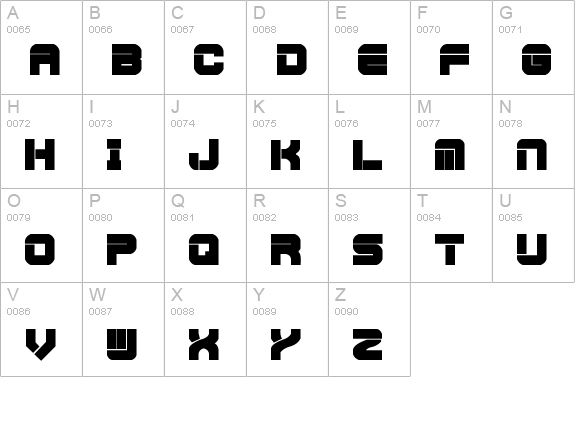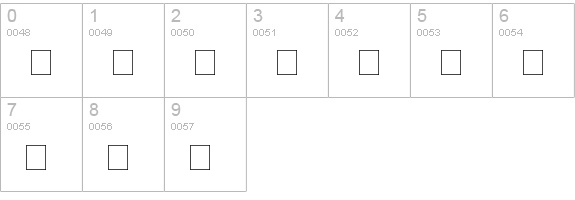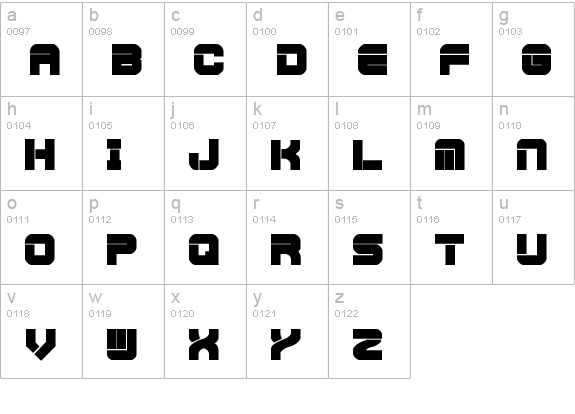
Futura Original Font Details
Futura Original is a timeless and versatile typeface that exudes modernity and sophistication. With its clean lines, geometric shapes, and perfect balance of elegance and simplicity, this font is perfect for a wide range of design projects. Whether you are creating a sleek logo, designing a professional website, or crafting a stylish poster, Futura Original will elevate your work to the next level. What makes Futura Original even more appealing is that it is available for free download at FontsMarket.com. Yes, that's right - you can easily access this premium font without any cost. So, if you want to add a touch of class and contemporary flair to your designs, look no further than Futura Original. Download it now and let your creativity soar!